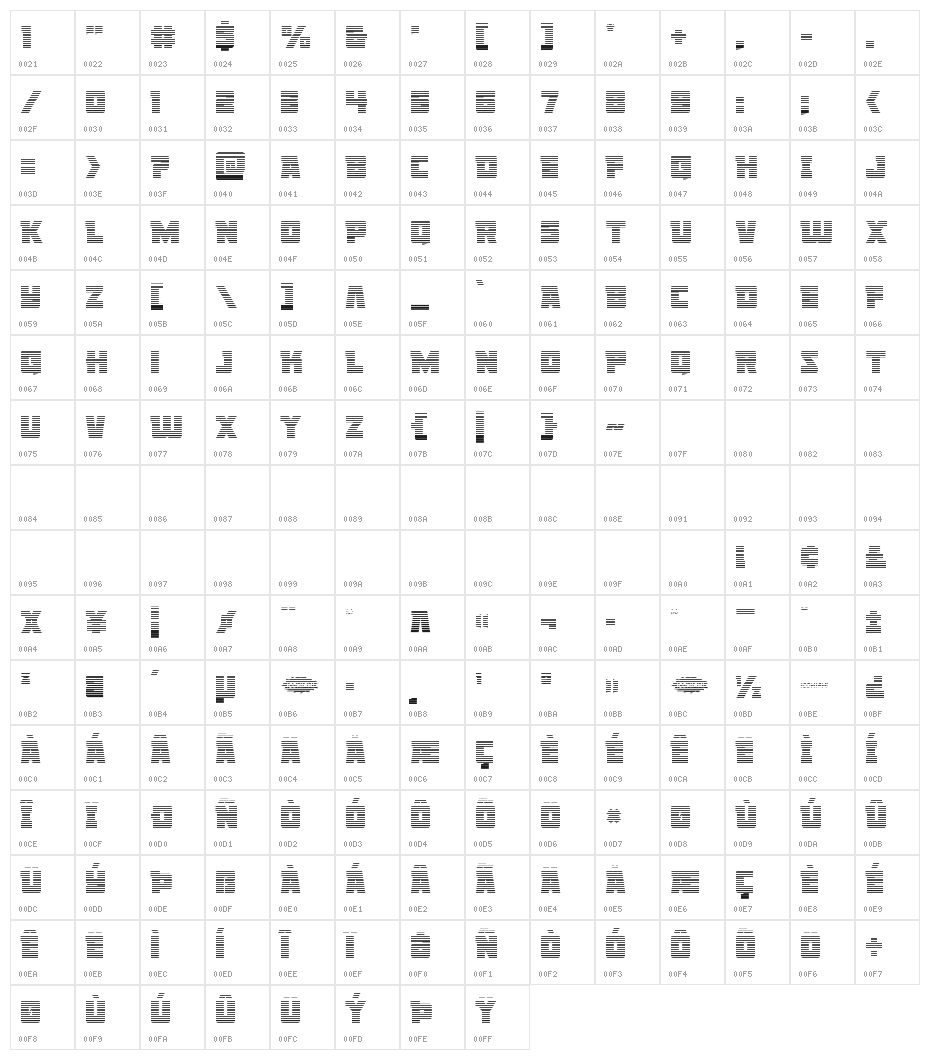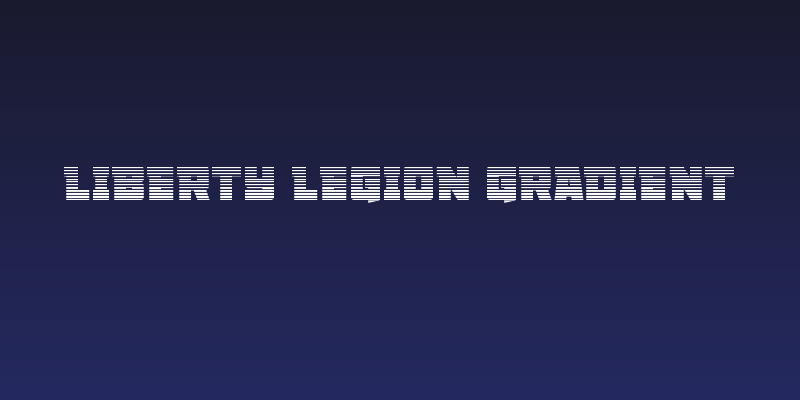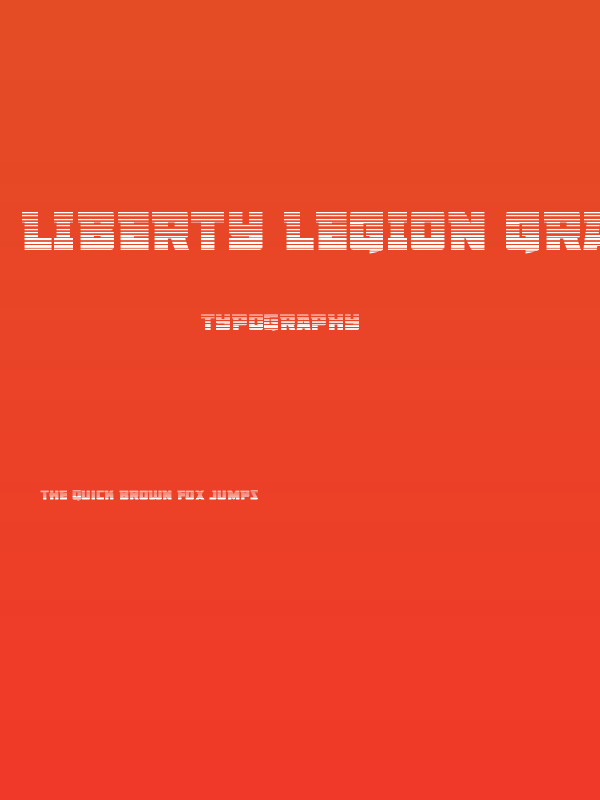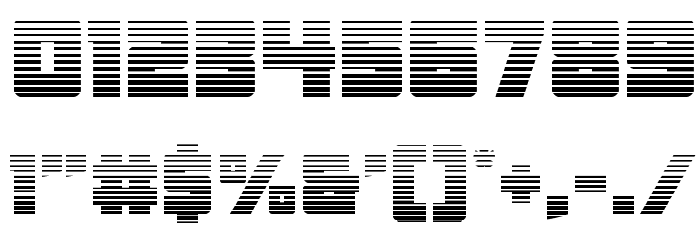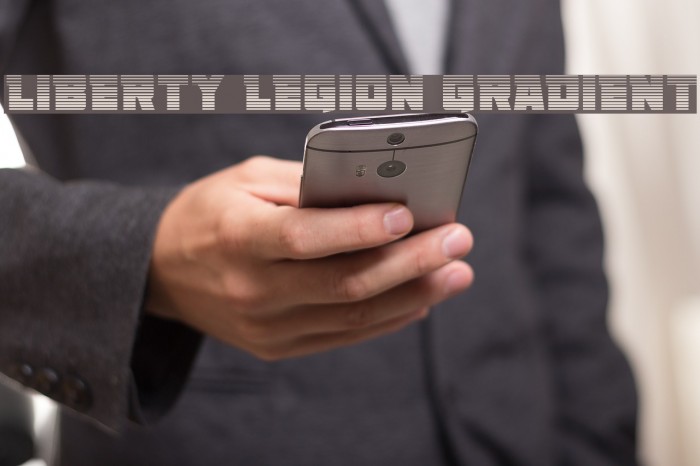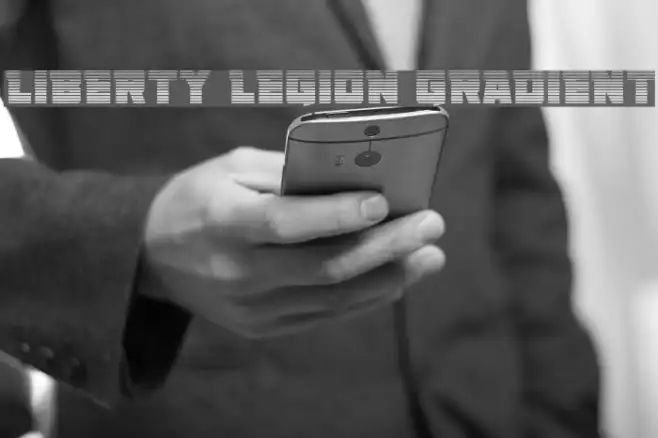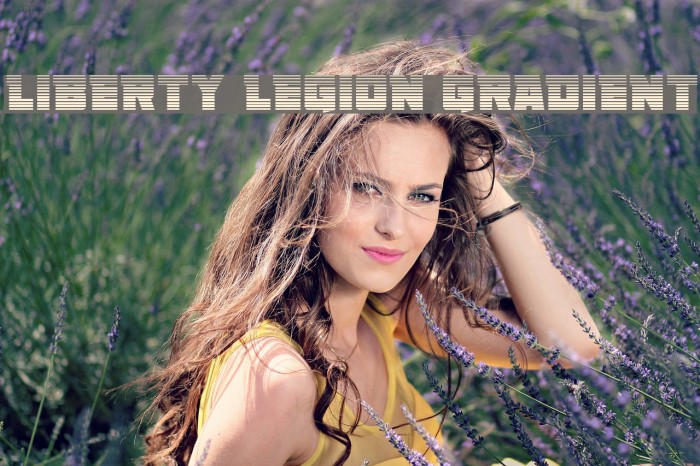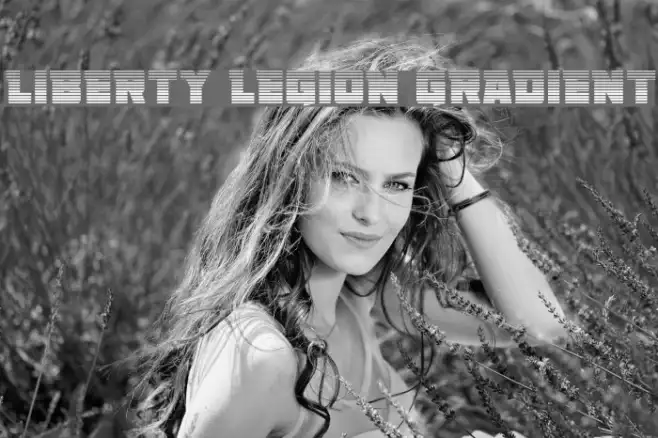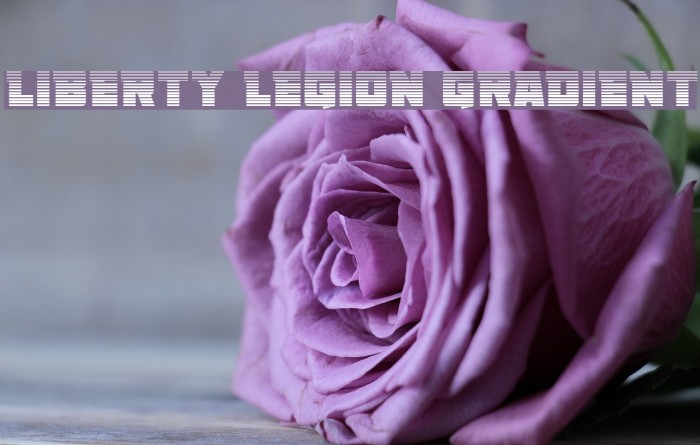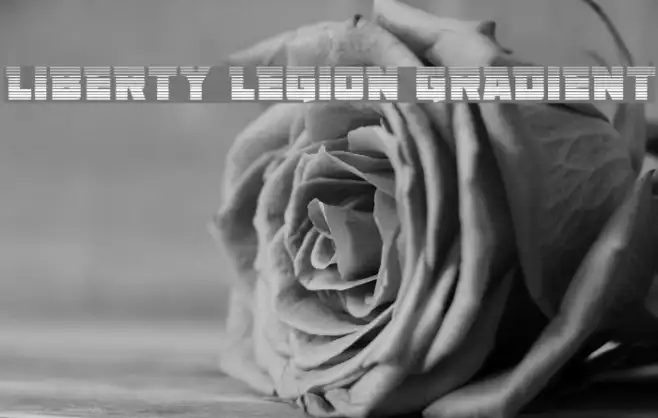
Liberty Legion Gradient Font
Liberty Legion Gradient Description
This font features a bold, futuristic design with a unique gradient effect created by horizontal lines running through each character. The uppercase and lowercase letters, as well as numbers and special characters, maintain a consistent style that emphasizes a modern, digital aesthetic. The use of horizontal lines gives the font a sense of movement and energy, making it stand out in any design. The characters are well-defined and maintain readability despite the intricate line work, making it suitable for various creative projects.
| Proposed Projects | Ideal for sci-fi themed designs, tech-related branding, video game titles, and modern posters. |